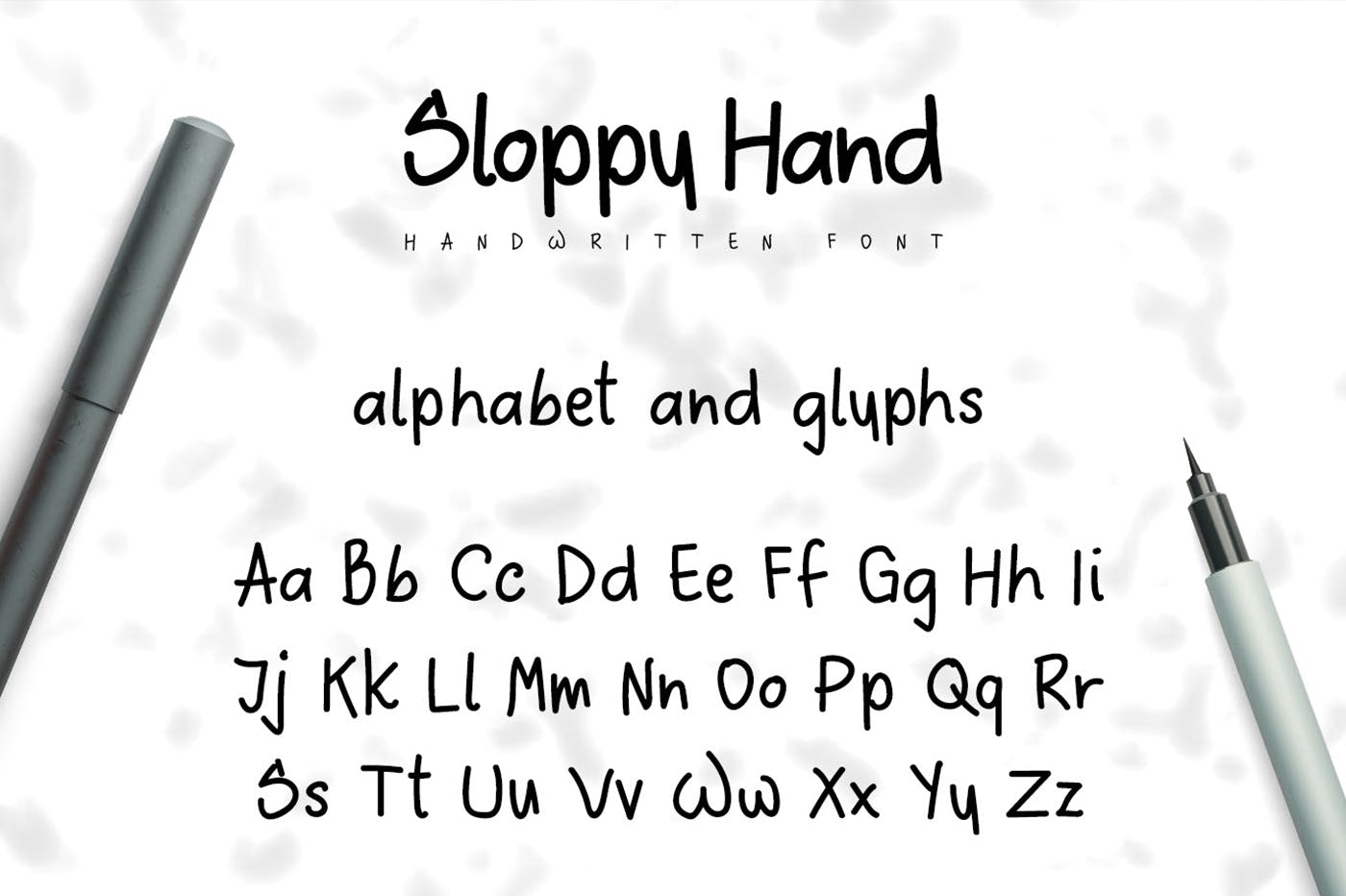
Sloppy Hand Free Typeface
Time for a new freebie! Take a look at this handwritten font from Design A Lot. Sloppy hand free typeface which can be used for logo design, presentations, headlines. Works great with taglines and with any playful design you might be working on. The idea behind the font was to keep it as authentic as possible, with all of its imperfections! You can see it’s rough and sloppy–living up to its name, which makes it look real and familiar. Moreover, the font is free for personal and commercial use! That means you can use it on your personal projects as well as on your client’s projects!